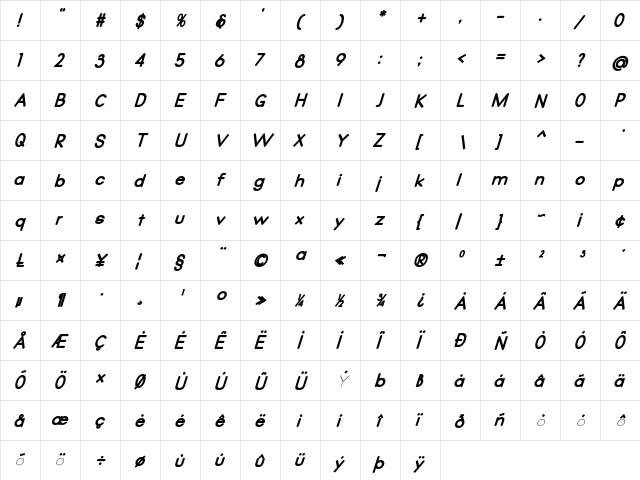
Qualio black italic Regular
Design Context for Qualio black italic Typeface
Qualio black italic takes a measured approach to typography — its balanced proportions and neutral character make it a reliable workhorse for both digital and print work. The dynamic lean of this cut emphasises speed and emphasis in any layout.
Pro Tip: Use Qualio black italic for emphasis, pull quotes, and subheadings where its slanted energy can add rhythm to the layout.